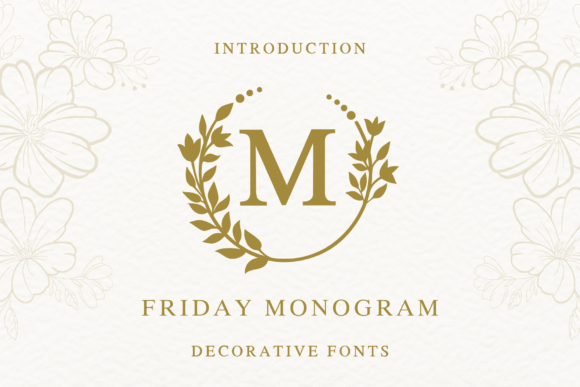
Friday Monogram Font: Elevate Your Celebrations with Elegance
Are you looking for a font that can add a touch of sophistication and charm to your special occasions? Look no further than the Friday Monogram Font. This elegant font is designed to make your celebrations stand out, featuring decorative letters inside a beautiful flower frame. In this article, we’ll explore the features and benefits of the Friday Monogram Font, and how it can be used to create stunning invitations, wedding cards, gifts, and more.
What is Friday Monogram Font?
Friday Monogram Font is a unique and elegant font designed specifically for special occasions. Its distinctive feature is the decorative letters inside a beautiful flower frame, which adds a touch of charm and sophistication to any celebration. The font is perfect for creating invitations, wedding cards, gift tags, and other celebratory materials that require a personal touch.
Features of Friday Monogram Font
The Friday Monogram Font has several features that make it an ideal choice for special occasions:
- Elegant Design: The font features decorative letters inside a beautiful flower frame, making it perfect for creating elegant and sophisticated designs.
- Versatile: The font can be used for a variety of special occasions, including weddings, birthdays, anniversaries, and more.
- High-Quality: The font is of high quality, ensuring that your designs look professional and polished.
Benefits of Using Friday Monogram Font
Using the Friday Monogram Font can bring several benefits to your designs:
- Adds a Touch of Elegance: The font adds a touch of sophistication and elegance to any design, making it perfect for special occasions.
- Creates a Personal Touch: The font allows you to create personalized designs that reflect the occasion and the recipient.
- Versatile: The font can be used for a variety of designs, from invitations to gift tags, making it a valuable addition to your design arsenal.
- Time-Saving: The font is easy to use, saving you time and effort in creating designs.
Ideas for Using Friday Monogram Font
The Friday Monogram Font can be used in a variety of ways:
- Wedding Invitations: Create stunning wedding invitations that set the tone for the big day.
- Birthday Cards: Create personalized birthday cards that make the recipient feel special.
- Gift Tags: Create beautiful gift tags that add a personal touch to gifts.
- Mug Designs: Create stunning mug designs that make a thoughtful gift or promotional item.
Tips for Getting the Most Out of Friday Monogram Font
Here are some tips for getting the most out of the Friday Monogram Font:
- Experiment with Colors: Experiment with different colors to find the perfect combination for your design.
- Use High-Quality Images: Use high-quality images to ensure that your design looks professional and polished.
- Keep it Simple: Keep your design simple and elegant, allowing the font to be the focal point.
- Practice Makes Perfect: Practice using the font to get a feel for its features and capabilities.
The Friday Monogram Font is a beautiful and elegant font that can add a touch of sophistication and charm to any celebration. Its features, benefits, and versatility make it an ideal choice for designers and non-designers alike. With its ease of use and high-quality design, the Friday Monogram Font is sure to become a valuable addition to your design arsenal.